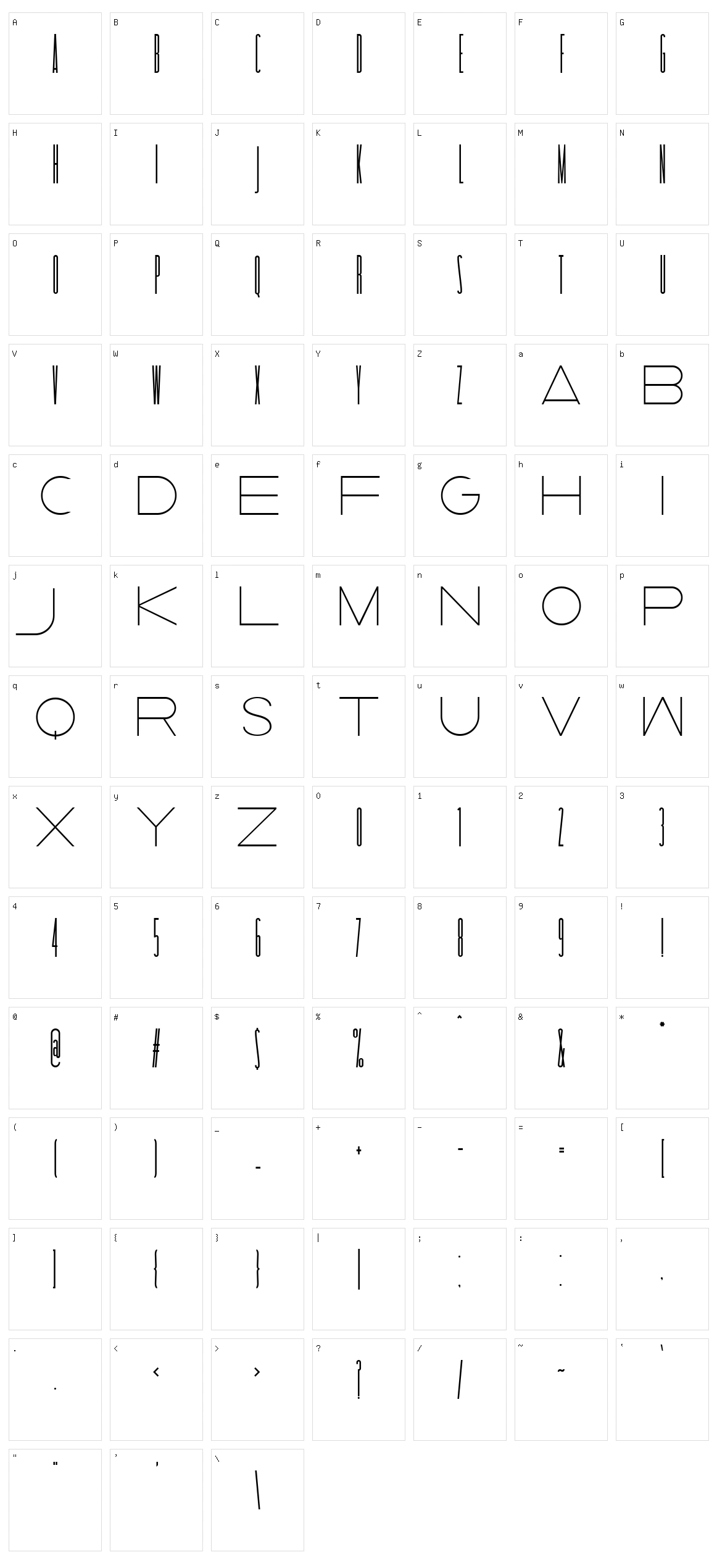
The free font Taller Evolution is carefully designed by Zetafonts, showcasing a thoughtful balance of creativity and usability and falls under the Sans serif font style. When you download the ZIP file, it contains only 147.73 KB of font files, making it lightweight and quick to download. Please review the license details below to understand permitted usage and distribution rights. If license information is not available, we recommend using this font for personal projects only or contacting the author directly for commercial usage permissions.